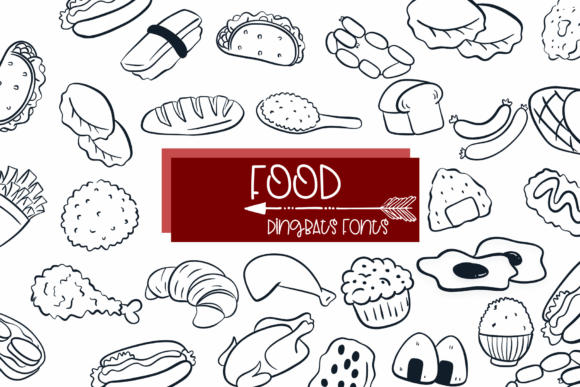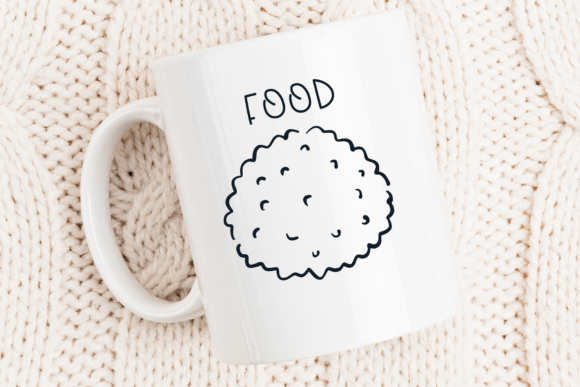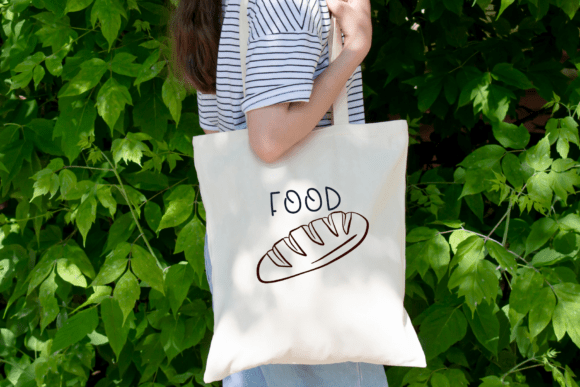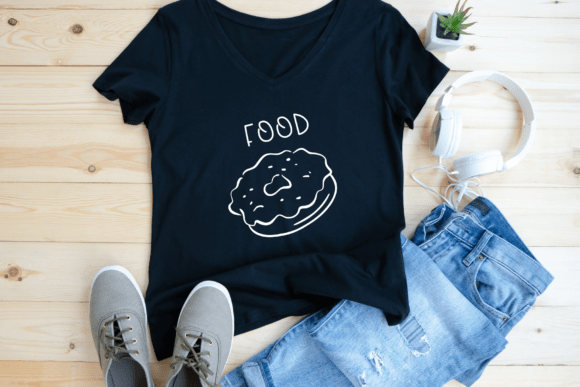
Bring Flavor to Your Designs with the Food Font
You’re brainstorming ideas for a new food blog or restaurant menu, and you’re stuck. You want to convey the essence of your culinary creations, but the right words just aren’t coming. That’s where the Food Font comes in – a deliciously designed set of hand-drawn food icons that will make your designs pop.
With the Food Font, you’ll have access to a variety of tasty glyphs, from sushi and croissants to chicken wings and cupcakes. This versatile font is perfect for designers who want to add a dash of fun and creativity to their work. Whether you’re a food blogger, a restaurant owner, or a kitchen decor enthusiast, the Food Font is sure to bring flavor to your designs.
Key Features of Food Font
- Font Family: Food Font is a unique, hand-drawn font designed specifically for food-related content. It comes in 3 font families: Food Font Regular, Food Font Bold, and Food Font Italic.
- Character Set: The font includes a wide range of characters, including uppercase and lowercase letters, numbers, punctuation marks, and special characters.
- Unique Characteristics: Food Font features a playful, handwritten style with intricate details, making it perfect for adding a touch of personality to food-related branding and marketing materials.
Food Font Review
Overall, I’d say the Food Font is a decent addition to any restaurant’s branding arsenal. Here’s what I like about it:
- ✨ The playful, handwritten feel of the font works well for casual eateries or food trucks.
- ✨ The bold, uppercase letters are perfect for signage or menu headers, grabbing attention and creating a fun atmosphere.
- ✨ The font is highly customizable, allowing designers to tweak the color, size, and style to fit their brand’s unique personality.
- ⚠️ The font may not be suitable for more upscale or formal dining establishments, as it can come across as too casual or playful.
- ⚠️ Some users may find the font’s imperfections or inconsistencies distracting, particularly if used in large quantities.
- ⚠️ The font may not be compatible with all platforms or software, which could lead to compatibility issues.
Overall, I’d recommend the Food Font for casual, laid-back restaurants or food-related businesses. While it may not be the best choice for every establishment, it’s a fun and playful option that can help create a memorable brand identity.
Tips for Getting the Most Out of Food Font
Here are some tips for getting the most out of Food Font:
- Experiment with different font styles and sizes to create visual interest
- Use Food Font in combination with other design elements, such as images and colors
- Consider using Food Font for headings and titles to draw attention
Here are some common use cases for Food Font:
- Menu design and typography
- Food blog and recipe design
- Choose a clean and simple background to let the Food Font stand out.
- Use a large font size for the title and ingredient names to emphasize their importance.
- Pair the Food Font with a bold, sans-serif font for cooking instructions and other details.
- Add high-quality images of the dishes to make the recipe cards more appealing.
- Use color to highlight important information, such as cooking times or ingredient quantities.
Creative Projects with Food Font
Project 1: Recipe Cards with Food Font
Create eye-catching recipe cards that will make users want to try out new dishes. Food Font can be used to display ingredient names, cooking instructions, and even recipe titles.
Project 2: Food Blog with Custom Illustrations
Create a unique and engaging food blog that showcases your culinary creations. Food Font can be used to add a personal touch to your illustrations and headings.